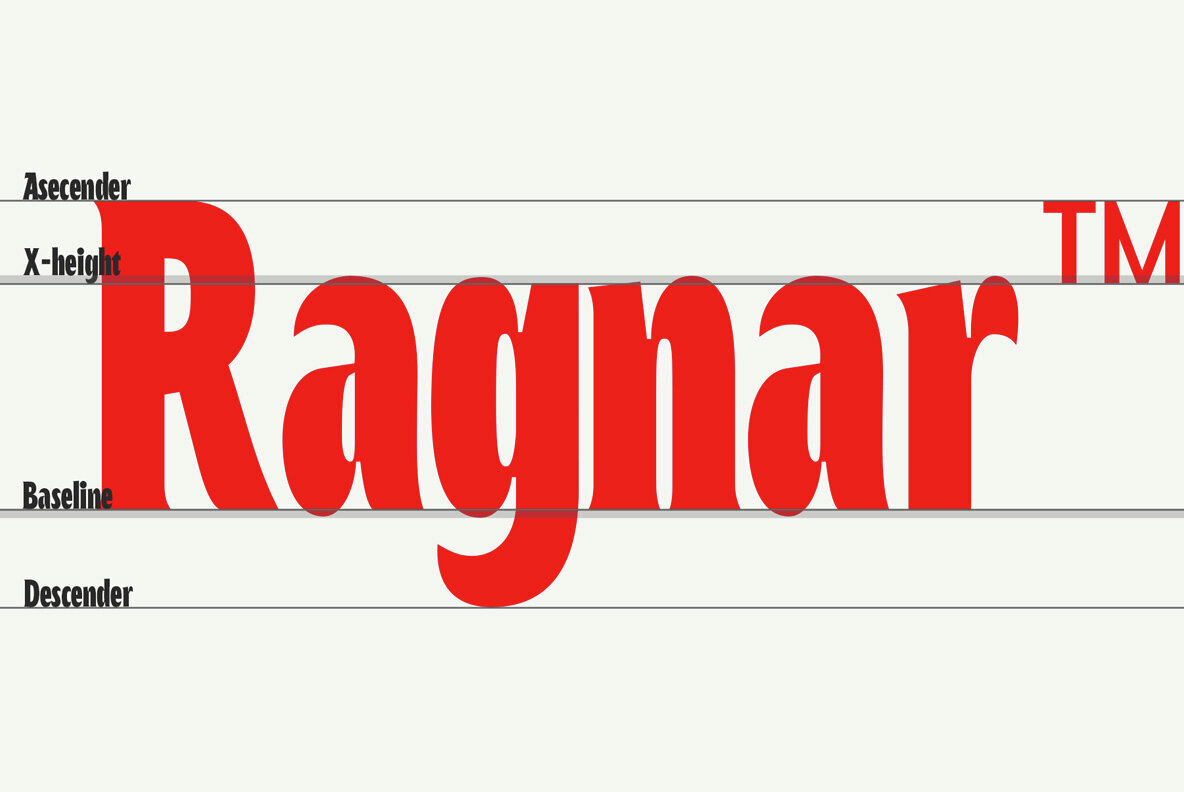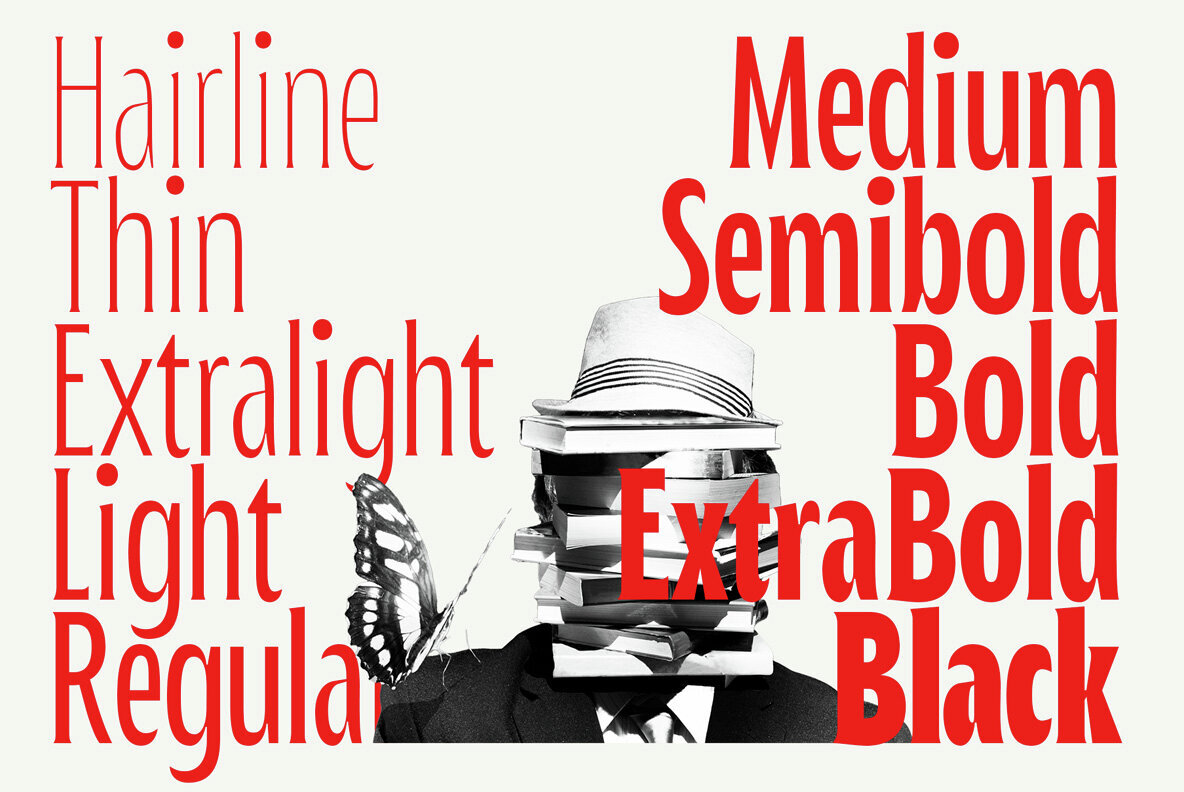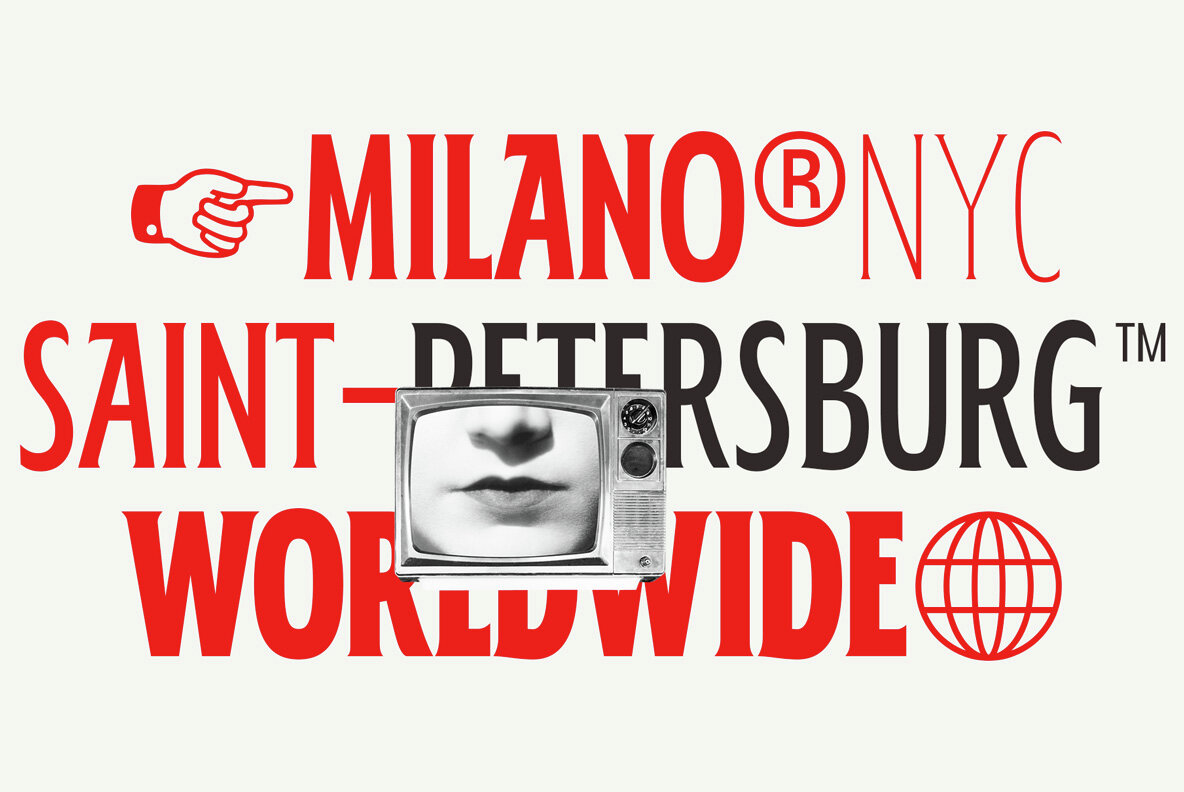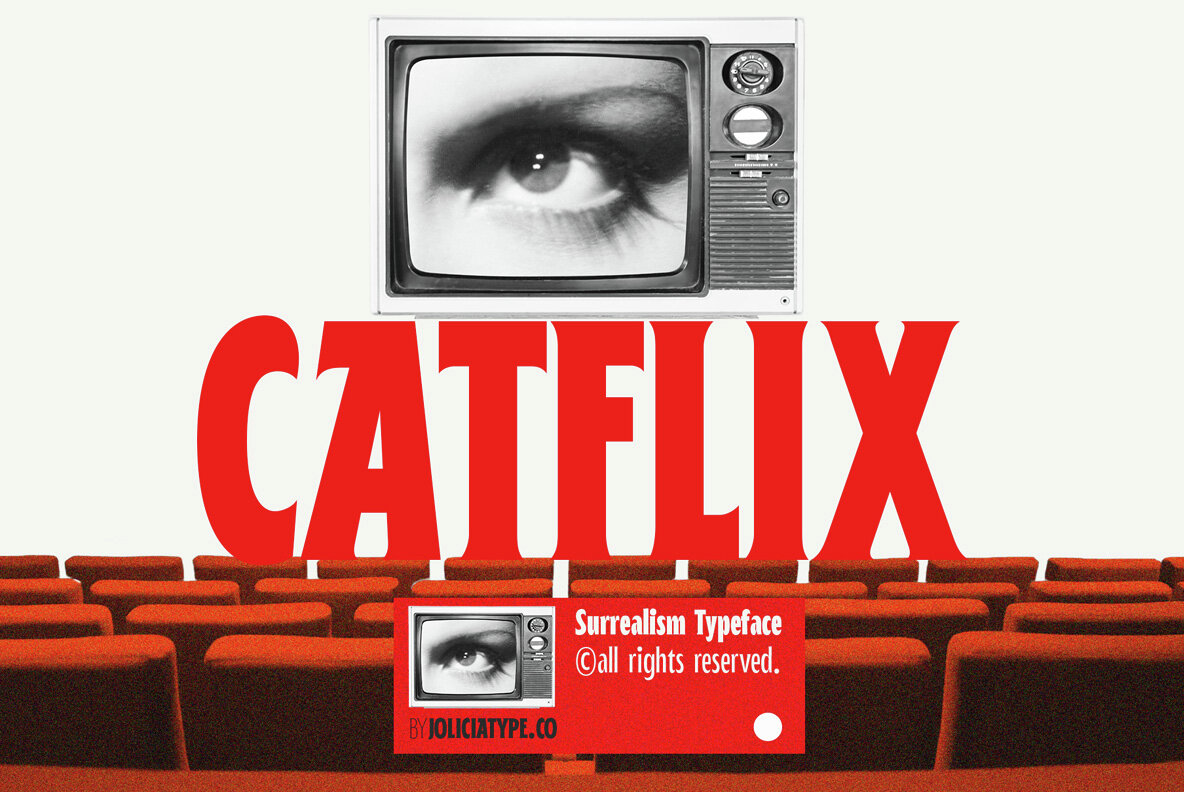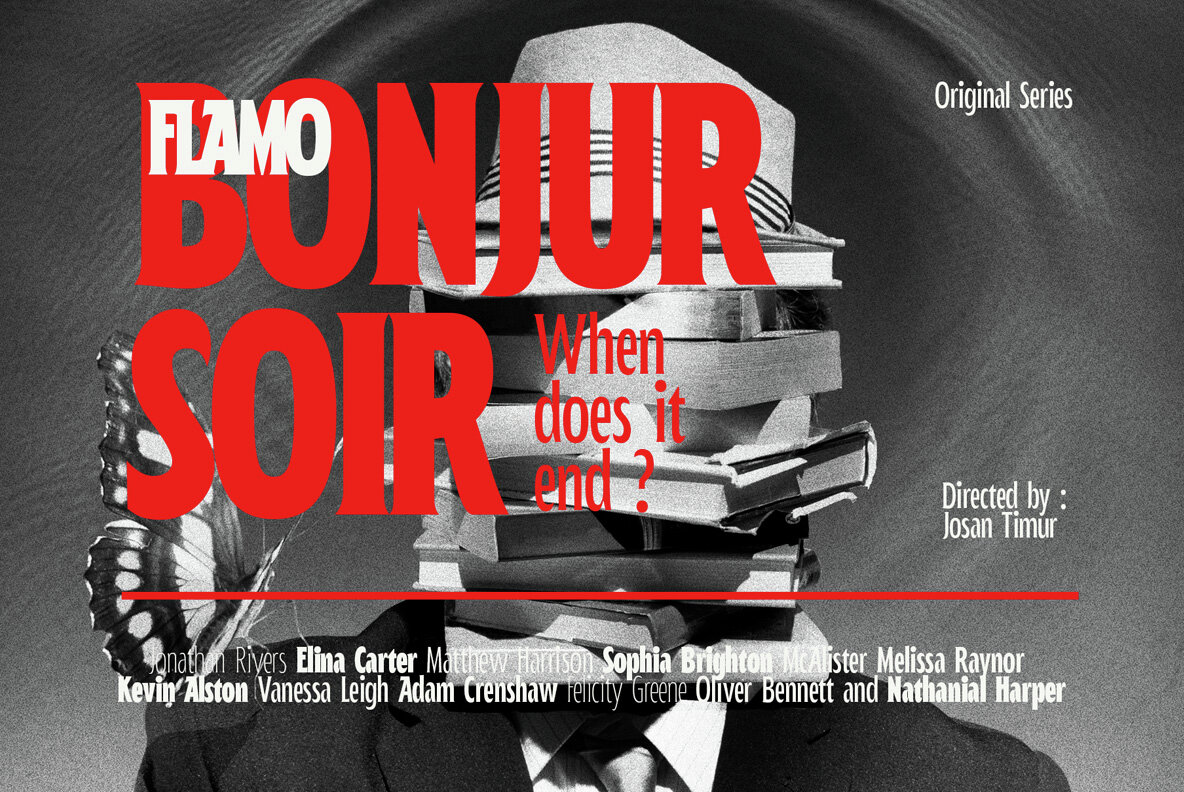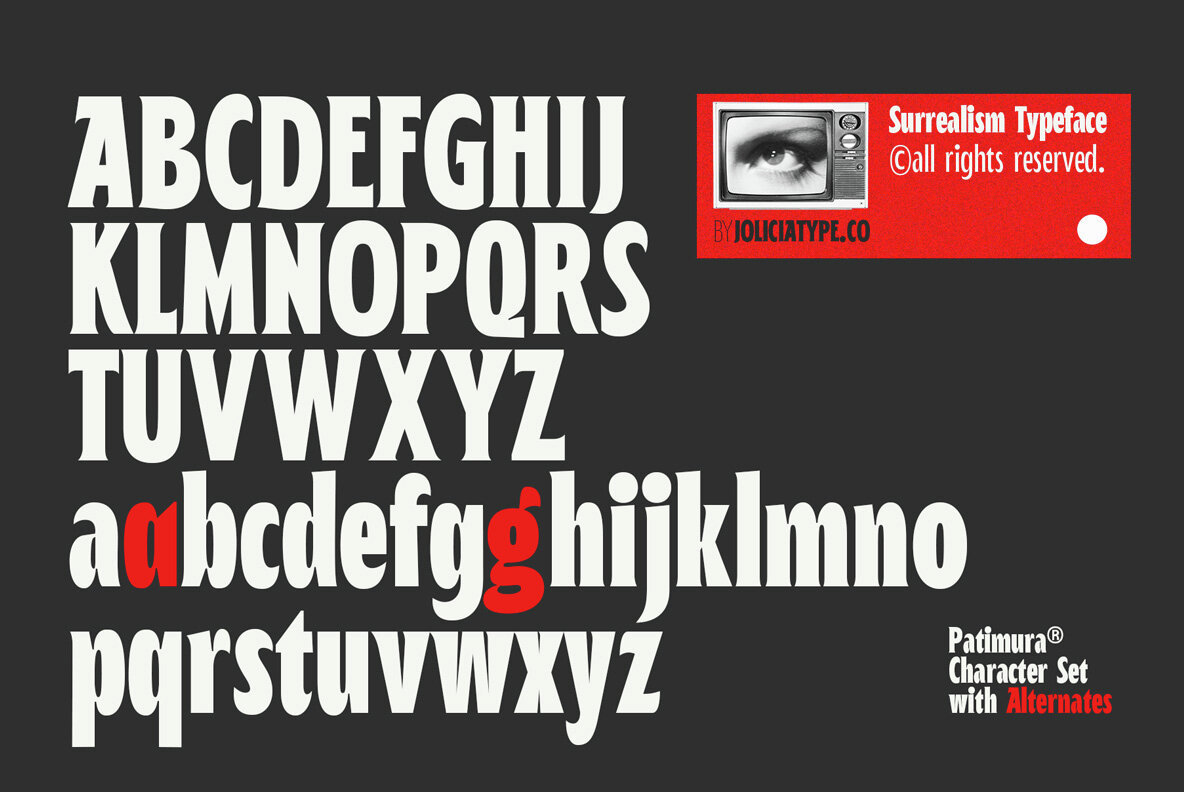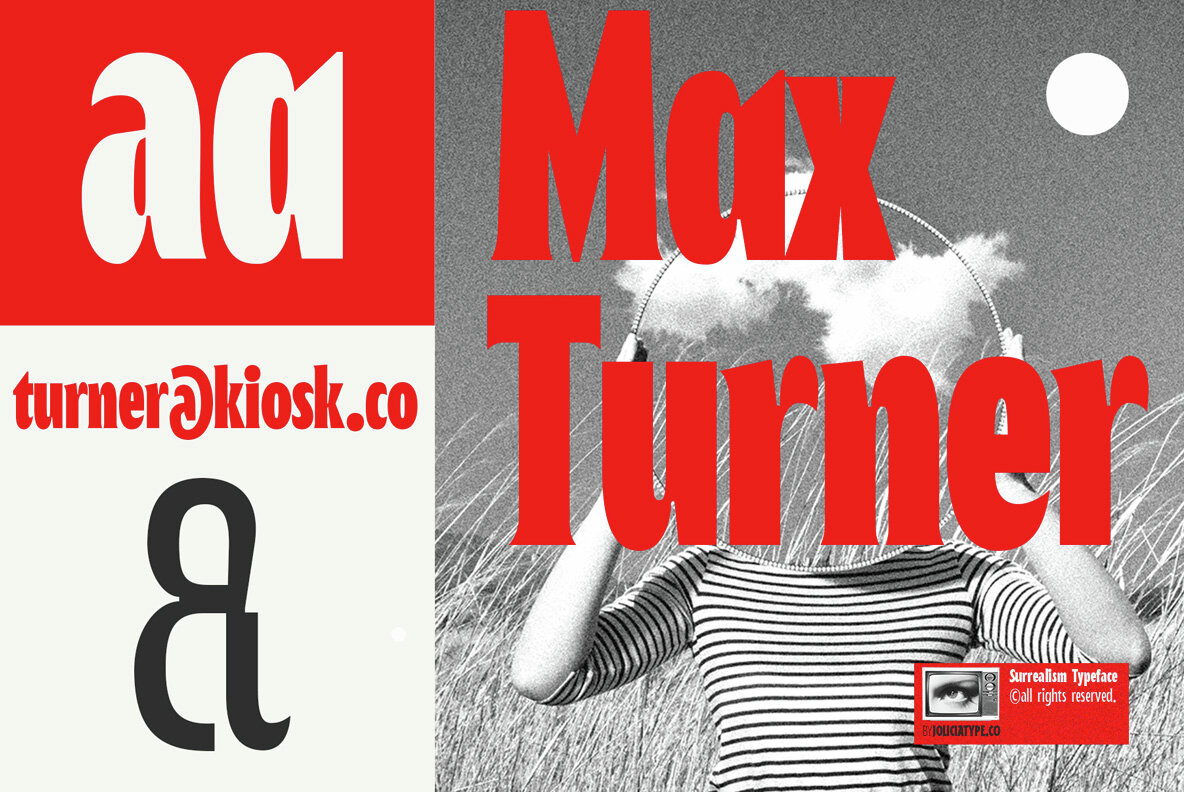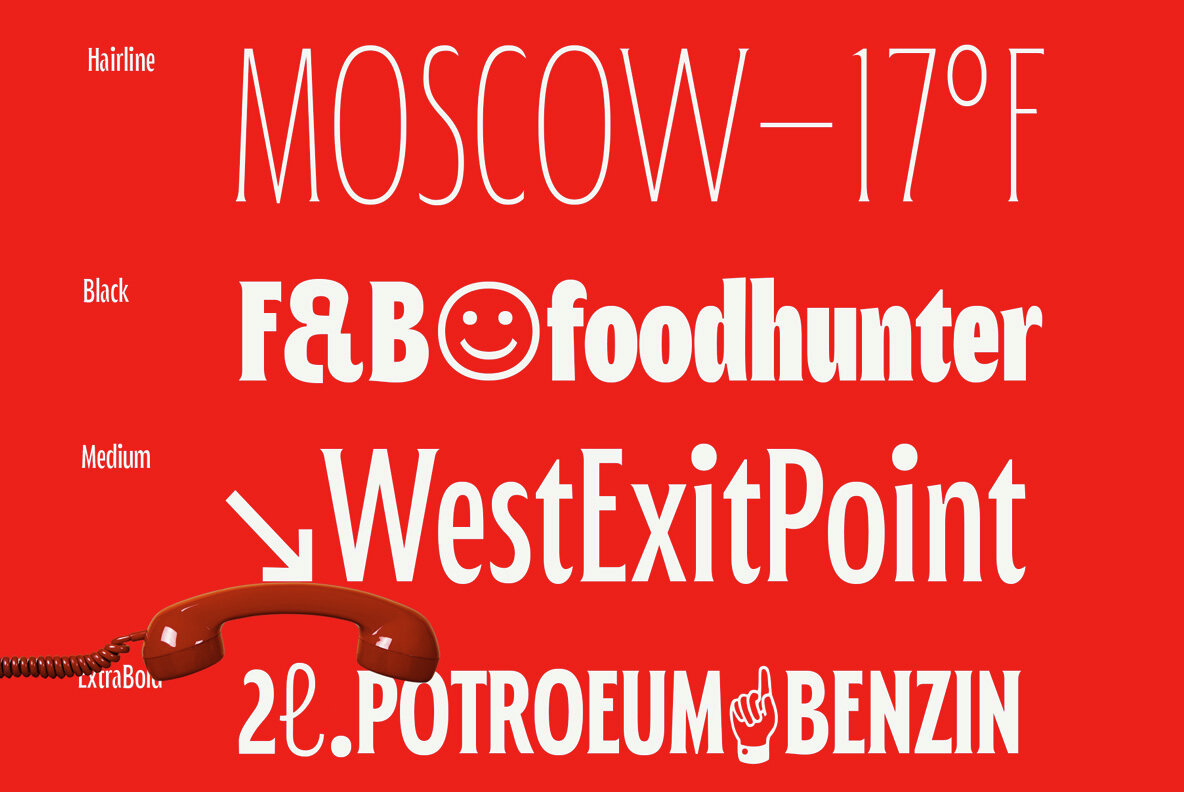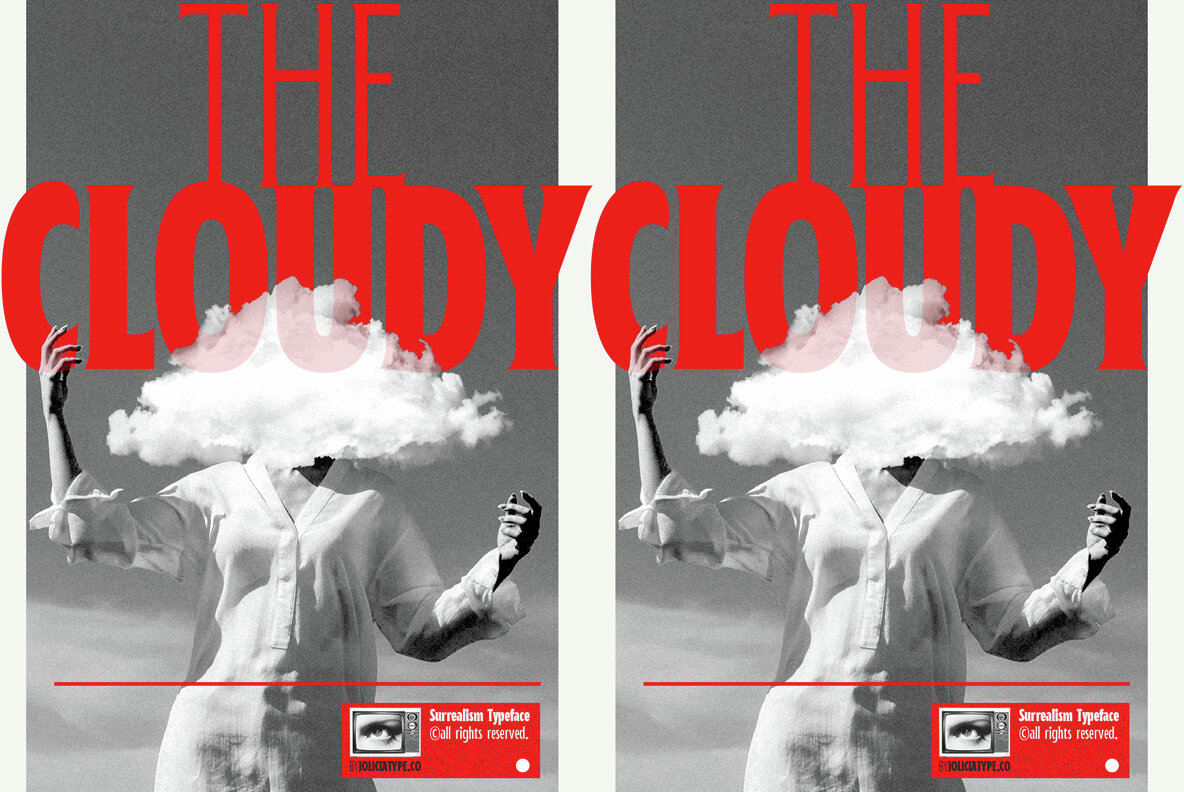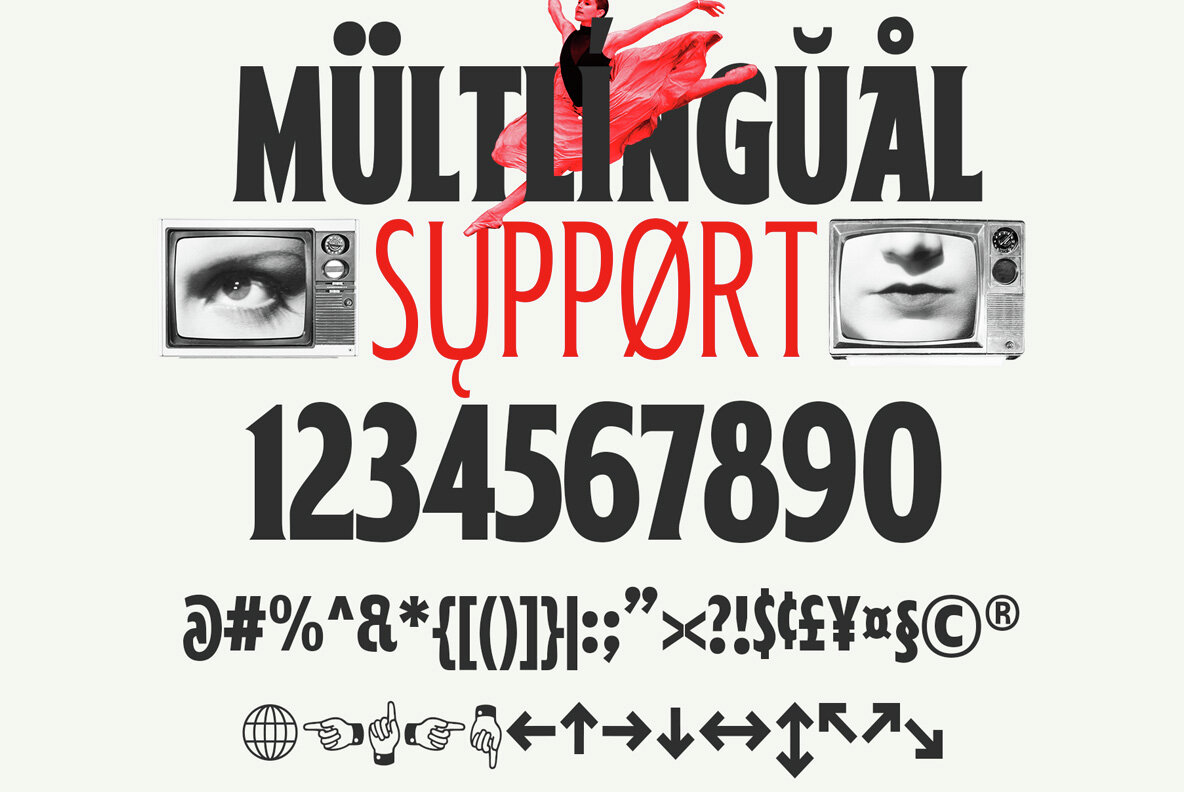
Patimura Condensed Font
Patimura Condensed Hairline
Patimura Condensed Thin
Patimura Condensed Extra Light
Patimura Condensed Light
Patimura Condensed Regular
Patimura Condensed Medium
Patimura Condensed Semi Bold
Patimura Condensed Bold
Patimura Condensed Extra Bold
Patimura Condensed Black
Patimura Condensed is a modern typeface infused with the spirit of surrealism, designed for creative professionals seeking a unique visual impact. This versatile font family features 10 weights, ranging from delicate Hairline to commanding Black, making it ideal for a wide variety of design projects, including editorial layouts, branding, packaging, and advertising. With a total of 484 glyphs, Patimura Condensed offers comprehensive multilingual support for 90 languages, ensuring your message reaches a global audience without compromising style. The condensed design and surrealist elements lend it an artistic, imaginative touch, perfect for designs that demand elegance and creativity.